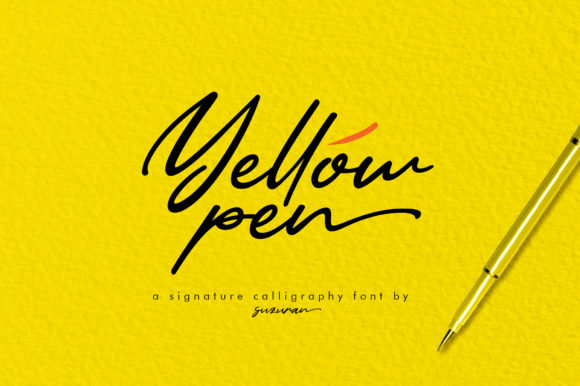
Yellow Pen Script Font
Embark on an enchanting journey with the Yellow Pen Script Font, a captivating and distinctive script that exudes charm and sophistication. Its playful yet elegant strokes dance across the page, evoking a sense of joy and wonder. Whether you're designing logos, crafting posters, or creating heartfelt wedding invitations, this font will infuse your creations with a touch of brilliance.
With the Yellow Pen Script Font, your designs will radiate a warm and inviting aura. Its graceful curves and whimsical characters bring a sense of playfulness, while its impeccable craftsmanship ensures a professional and polished look. Dive into a world of limitless creativity as you explore the endless possibilities of this extraordinary font.
Elevate your designs to new heights with the Yellow Pen Script Font. Its versatility knows no bounds, effortlessly adapting to a multitude of styles and themes. From eye-catching logos that leave a lasting impression to enchanting wedding invitations that capture the essence of love, this font will elevate your projects to new heights.
Unlock your imagination and let the Yellow Pen Script Font guide you to create designs that resonate with your audience. Its enchanting personality and captivating charm will captivate their attention and leave a lasting impact. As an added bonus, you'll also receive the Night in Kanses font, a complementary font that adds an extra layer of visual intrigue to your projects.